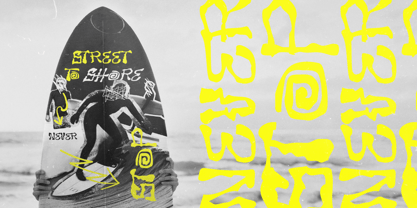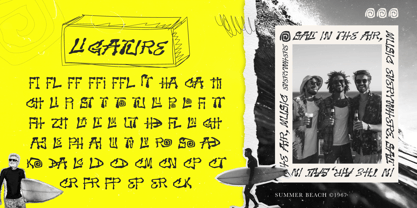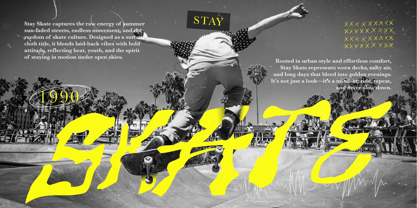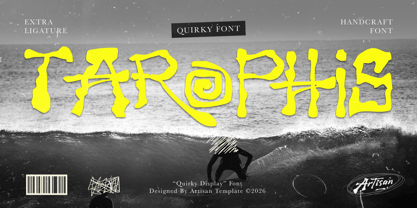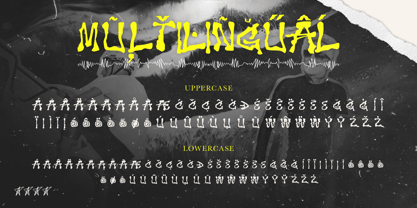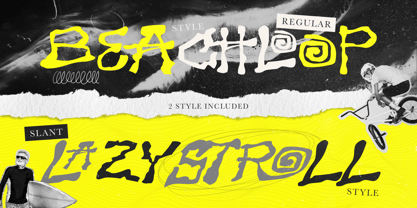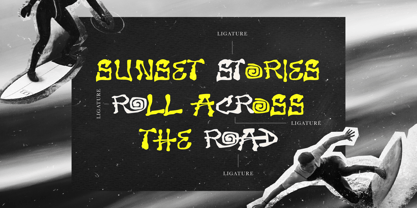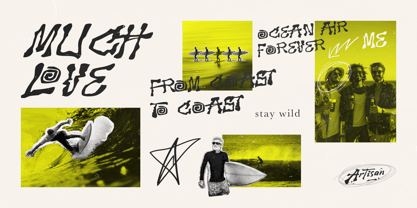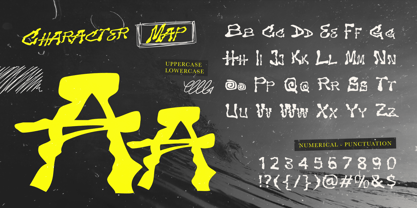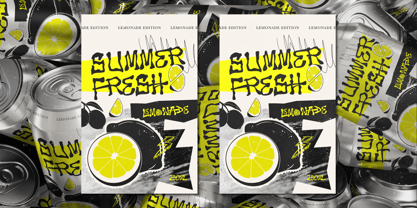
Tarophis
The Tarophis Font Family was designed by Meidy Meichico and published by Artisan Themes. Tarophis contains 2 styles and family package options. More about this family
Tarophis is a quirky handcrafted display font that brings raw street energy into your designs. Inspired by urban skate culture and experimental lettering, this font features bold irregular shapes, playful curves, and unique spiral details that instantly grab attention. Designed to stand out, Tarophis works perfectly for posters, streetwear branding, music covers, packaging, social media graphics, and any project that needs a rebellious, youthful vibe. Its expressive character gives your typography a handmade, edgy personality without losing readability. With two included styles and a rich set of ligatures, Tarophis lets you create dynamic, custom-looking typography effortlessly. Mix and match to get that authentic urban feel every time. Perfect for streetwear branding, skate posters, music artwork, bold packaging, social media graphics, urban-themed designs, and creative headlines.